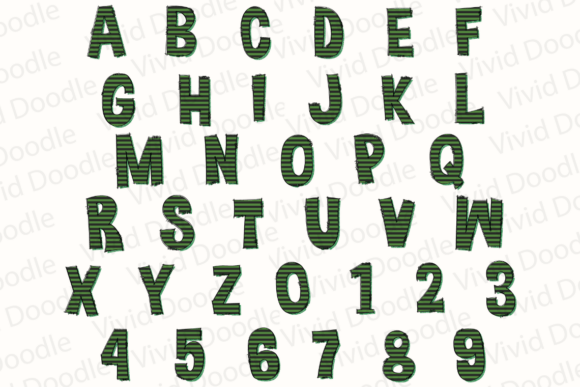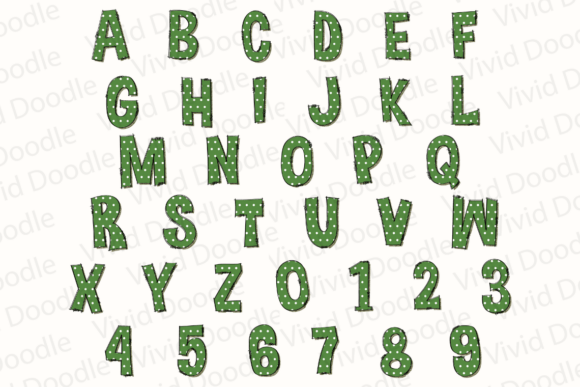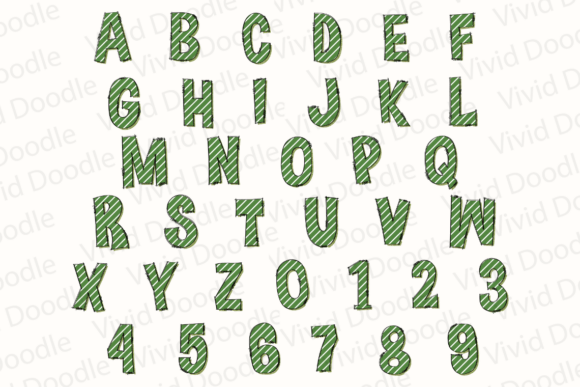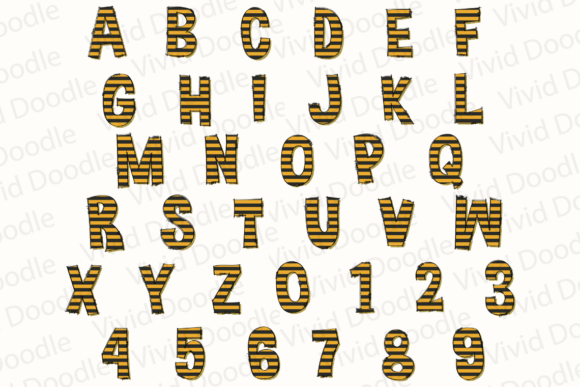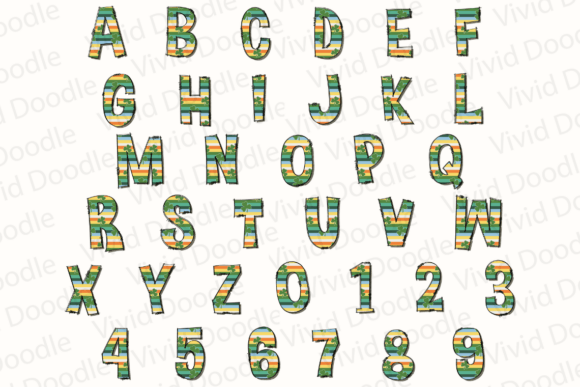
Introduction to Funny St. Patrick Font
Funny St.
Patrick Font is a whimsical and cheerful typeface inspired by the fun and festive spirit of St Patrickโs Day.
Key Features of Funny St. Patrick Font